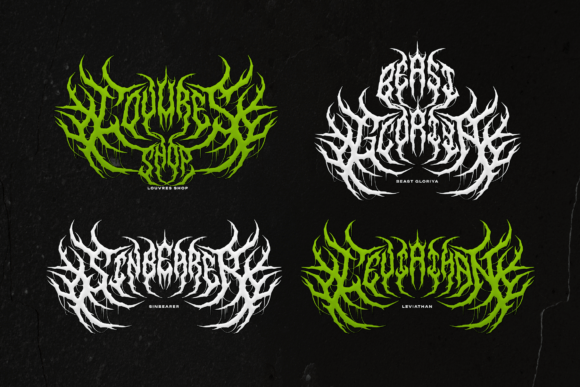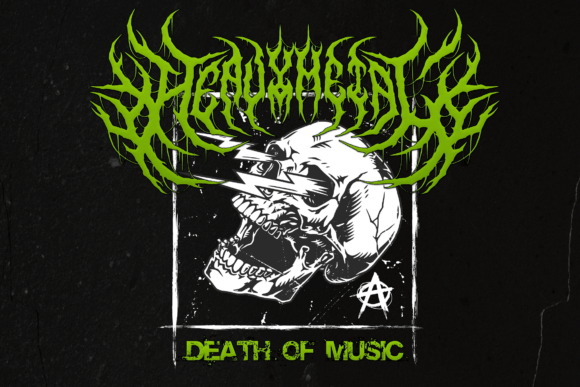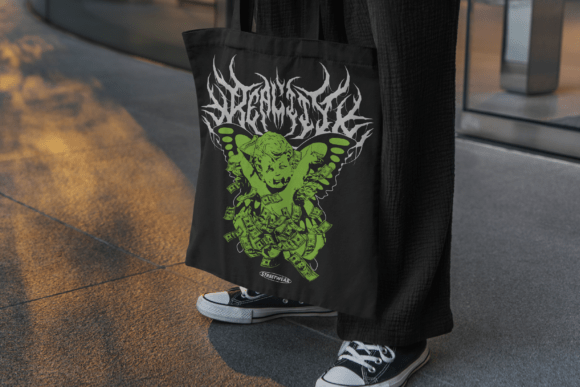
Introduction to Omenist Font Font
Fonts play a crucial role in design, and the Omenist Font font is a typeface that brings both character and versatility to any project. Whether you’re working on a branding project, a website, or a print design, the Omenist Font font offers a unique style that can elevate your work.
Omenist is an extreme blackmetal display font crafted for fans of the darkest aesthetics.
Featuring jagged, chaotic spikes and an organically corrupted form, this font captures the raw intensity of metal band logos and underground horror visuals With 5 unique alternate styles, Omenist lets you fully customize your composition—perfect for album covers, merchandise, poster designs, and anything that demands brutal, cryptic energy.
The Omenist Font font is more than just a typeface – it’s a design tool that helps you communicate your message with style and clarity. Its unique character set and versatile design make it suitable for a wide range of applications, from elegant invitations to bold headlines.
With its carefully crafted letterforms and balanced proportions, the Omenist Font font ensures readability and visual appeal across all mediums.
The Omenist Font font stands out with its unique design, exceptional readability, and versatility across various design applications.